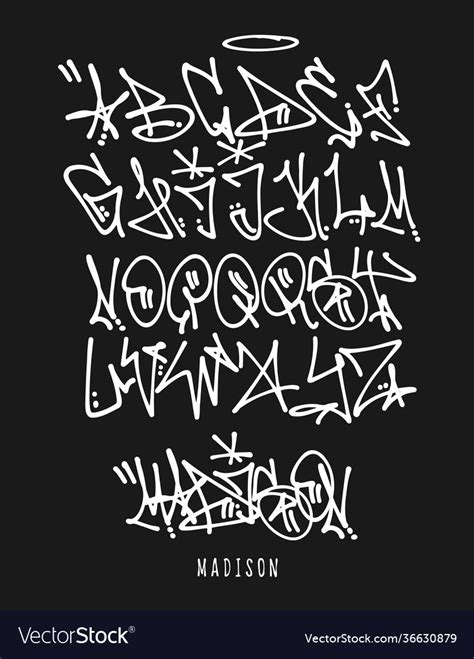
Graffiti Font Tag. Graffiti is an artistic expression that is usually done on public buildings, walls, or trains. Web looking for tag graffiti fonts?